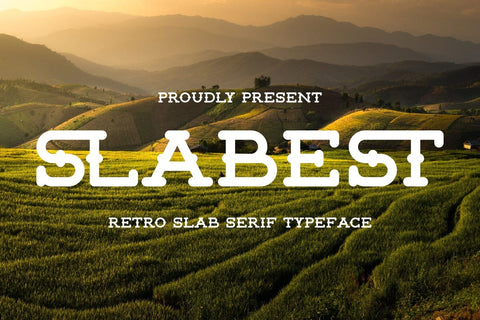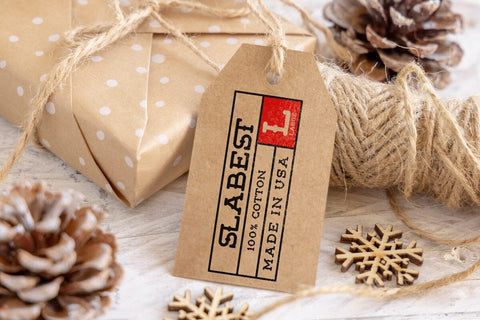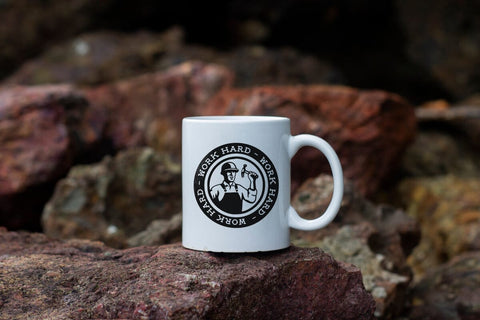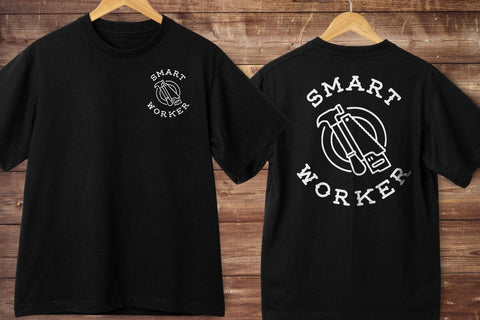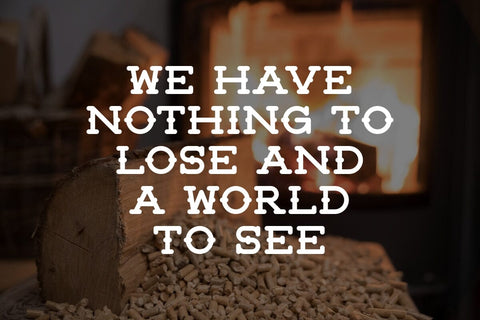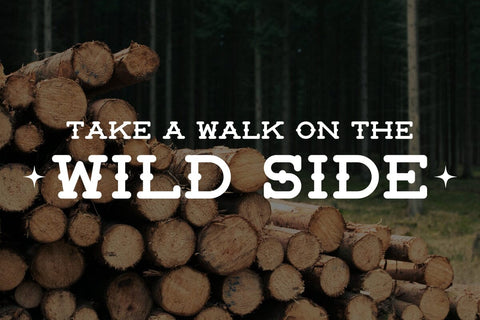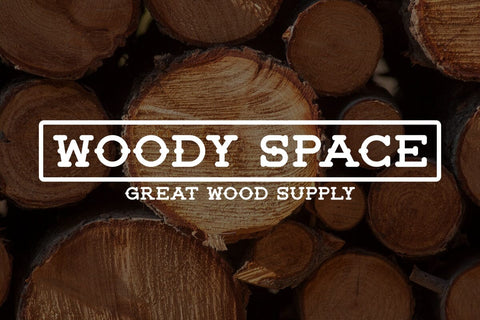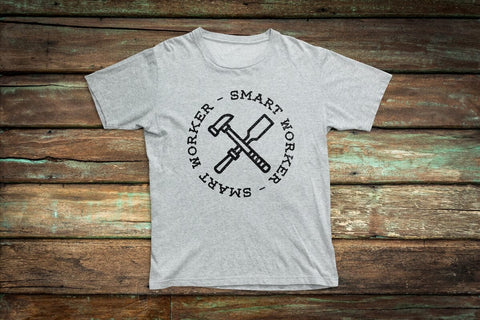
Slabest - Retro Slab Serif Typeface
Hi, Introducing Slabest - Retro Slab Serif Typeface
A Retro Slab Serif Typeface font with a manly, vintage and gentle style. This font is cool for headlines, t-shirts, mugs, overlays, etc